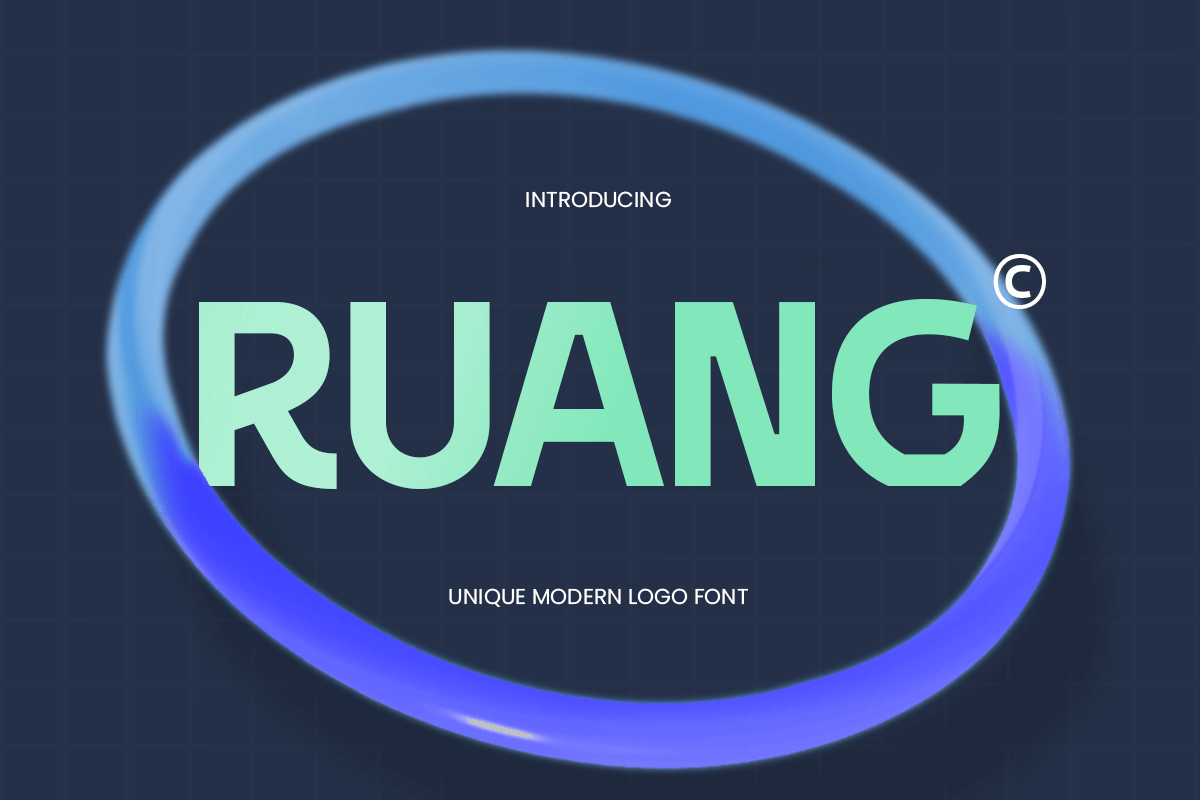
Ruang
-Unique Modern Logo FontRuang is a unique modern logo font that offers a striking balance of sleek design and bold personality. Perfect for branding projects, Ruang's clean lines and distinctive characters make it a go-to choice for creating memorable logos and identities. Whether for digital or print, this font adds a modern touch that stands out in today’s design landscape.
Designed for versatility, Ruang can adapt to various projects, from luxury branding to tech startups, offering a professional yet stylish look. The font's simplicity allows for clear communication, while its unique touches ensure that each design maintains individuality.
If you’re looking to give your logos a modern edge with a creative flair, Ruang is the perfect solution. Its combination of functionality and elegance will make your designs pop, ensuring they make a lasting impression.